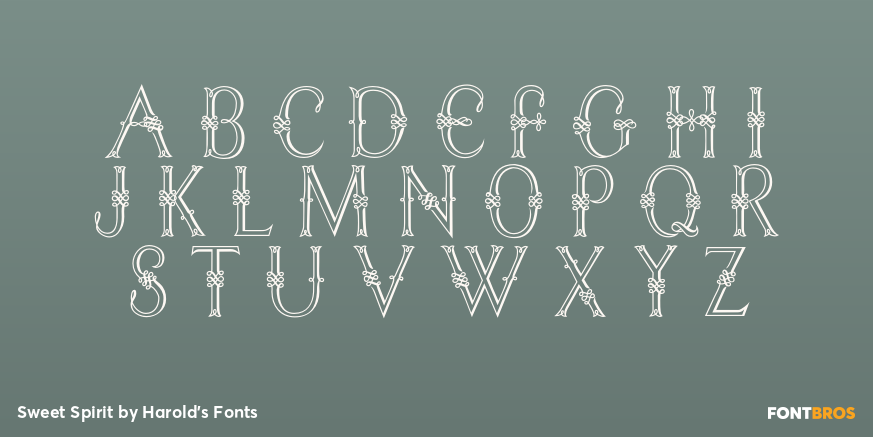
Sweet Spirit
Font Style by Harold's Fonts
SWEET SPIRIT is a cousin to my Graceful Ghost font, an ornamental calligraphic font. Similarly composed of graceful curving lines, but somewhat more compressed than its companion.
SWEET SPIRIT includes caps, numbers, limited punctuation and international characters.